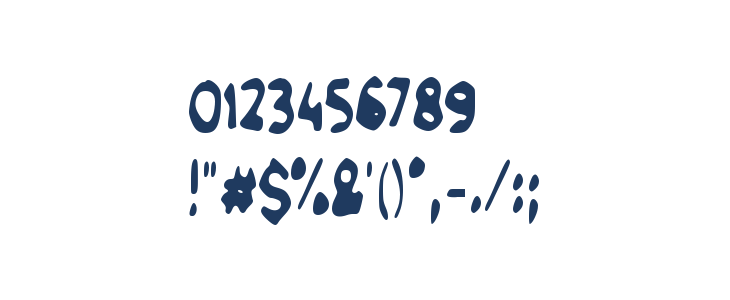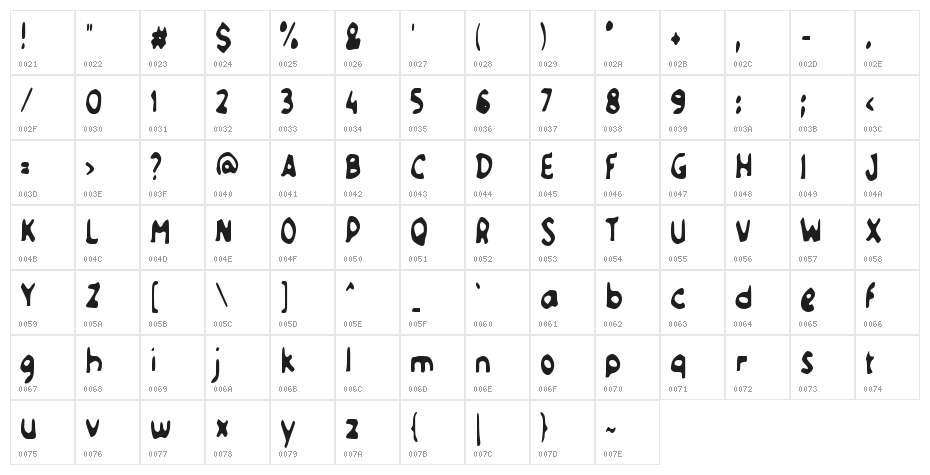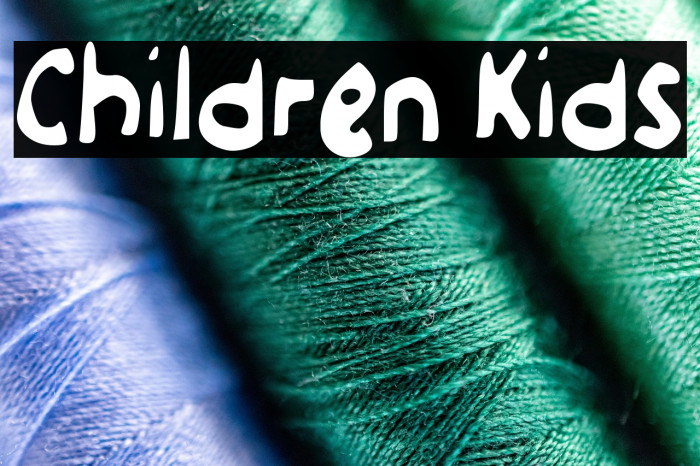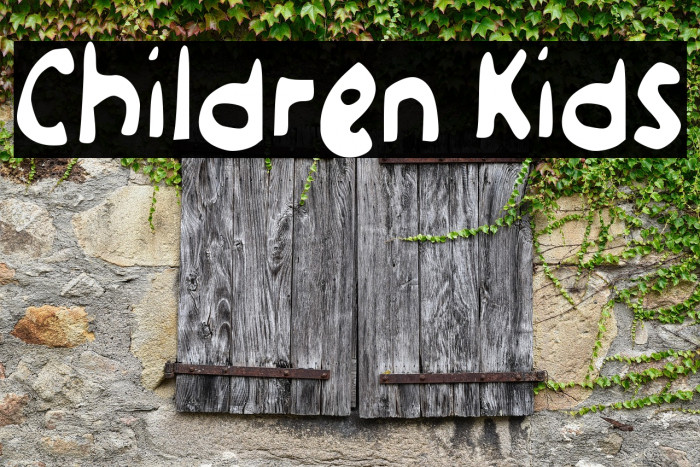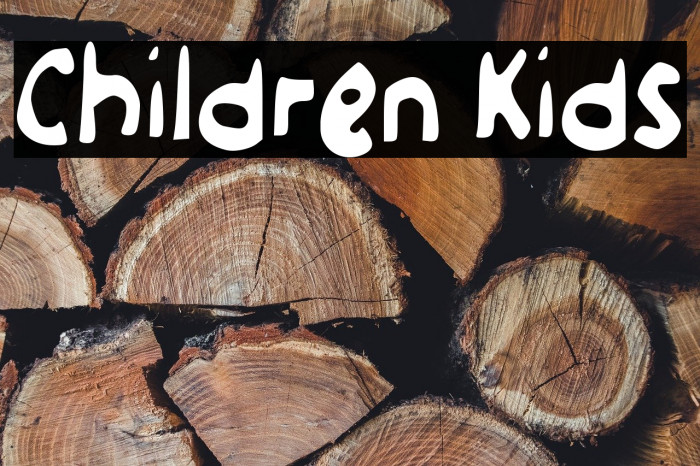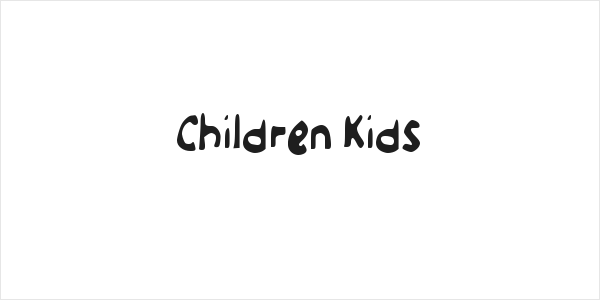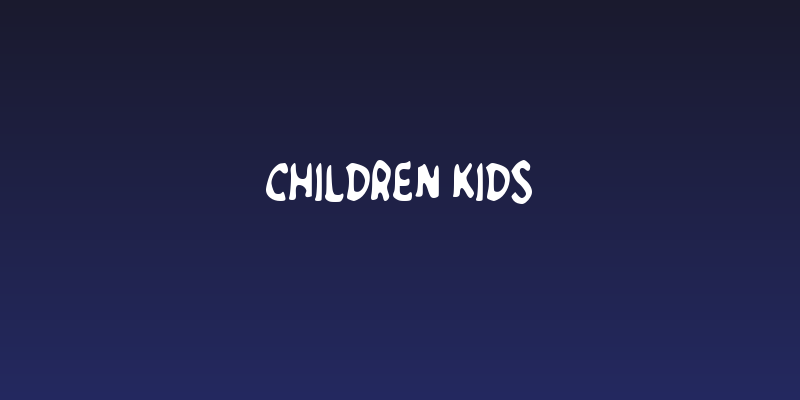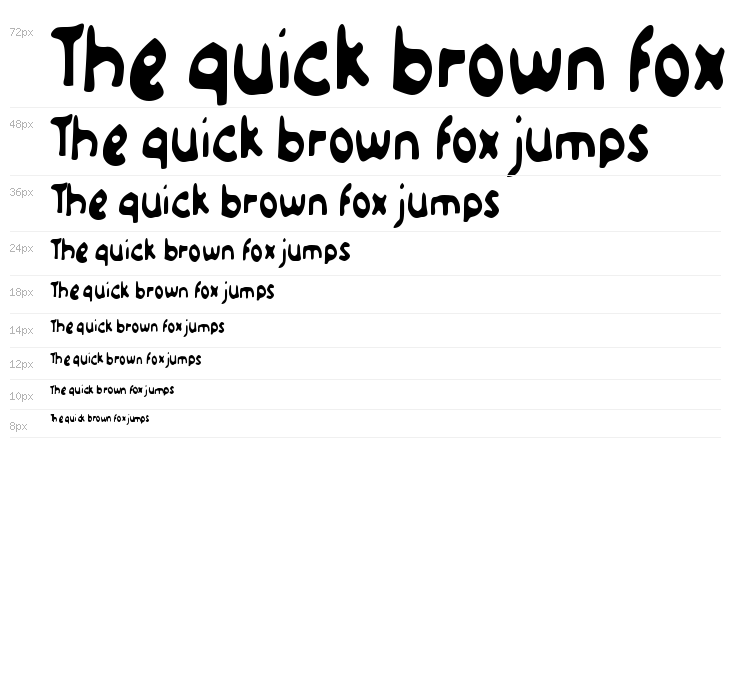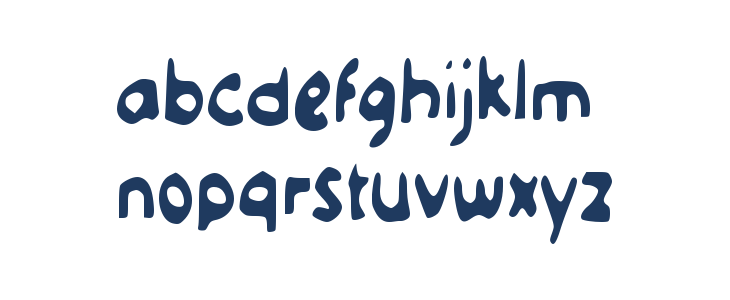
Children Kids Font
Children Kids Description
This playful and whimsical font features bold, rounded characters with a hand-drawn appearance, making it ideal for projects aimed at children. The letters are slightly irregular, adding a sense of fun and creativity. The font's thick strokes and smooth curves give it a friendly and approachable look, perfect for engaging young audiences. The numbers and special characters maintain the same playful style, ensuring consistency across all text elements.
| Use Case | Headlines, Logos, Children's materials |
| Proposed Projects | Ideal for children's books, educational materials, toy packaging, and playful branding. |